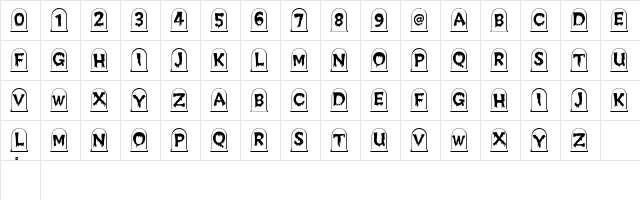
CreepyGraves Regular Font Preview
CreepyGraves Regular
Design Context for CreepyGraves Typeface
CreepyGraves carries an unsettling edge — its distorted letterforms are built to unsettle, perfectly suited to horror, Halloween, and dark creative work.
Ideal for Halloween projects, horror film titles, haunted house signage, and dark editorial design.
Font Pairing: Pair with a clean neutral sans-serif for body copy to let CreepyGraves's character lead without overwhelming the composition.
Pro Tip: CreepyGraves works best as a headline or focal element. Pair it against plain, neutral body text to amplify the contrast.